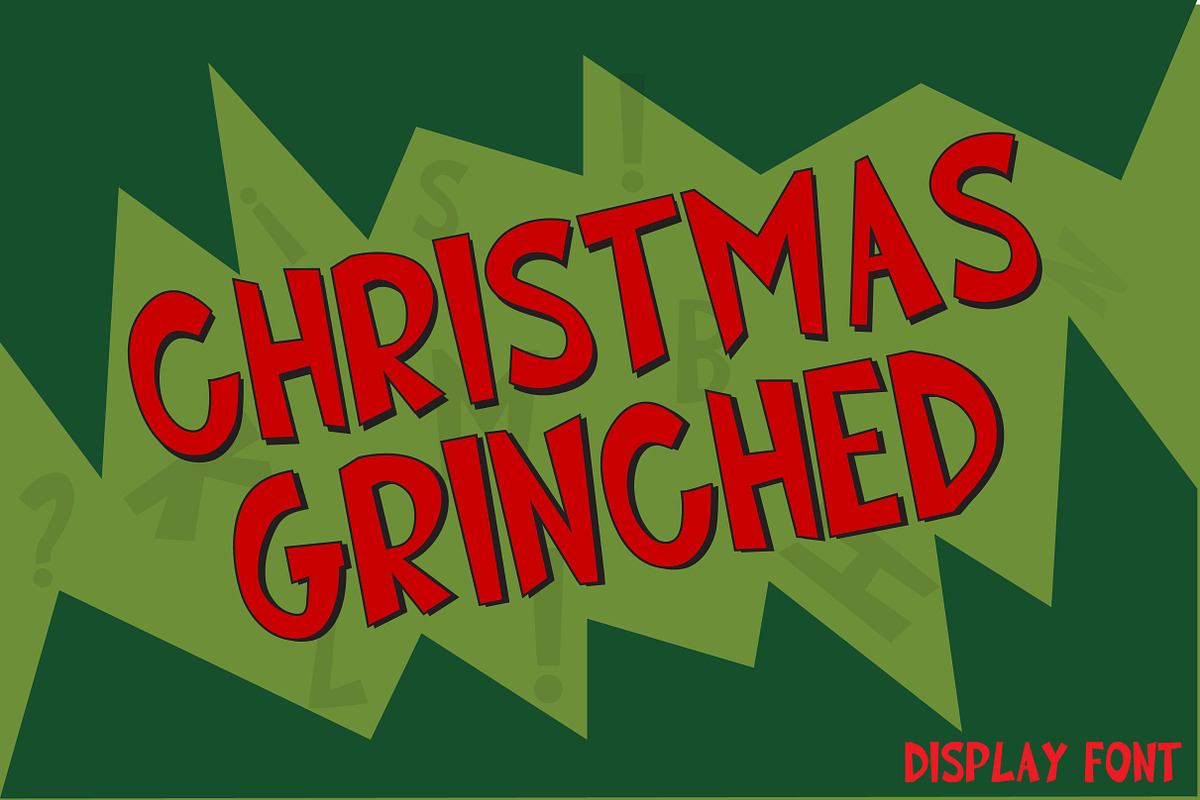
Christmas Grinched Font Free Download is a playful and festive typeface perfect for adding a touch of holiday mischief to your seasonal designs. Please note: you must purchase this font for commercial use, but you can test it through a free download. Inspired by classic Christmas cartoons and hand-drawn lettering, this font is ideal for greeting cards, holiday party invites, DIY crafts, children’s designs, and whimsical branding.
With its bouncy baseline, quirky curves, and joyful spirit, Christmas Grinched Font Free Download brings cheer and fun to every project. Whether you’re creating printable tags or designing festive social media posts, this font captures the magic (and the mischief!) of the holiday season. Fully compatible with Adobe Illustrator, Photoshop, Canva, and more. Download it today for personal use and let your holiday creativity shine with the cheerful charm of Christmas Grinched.